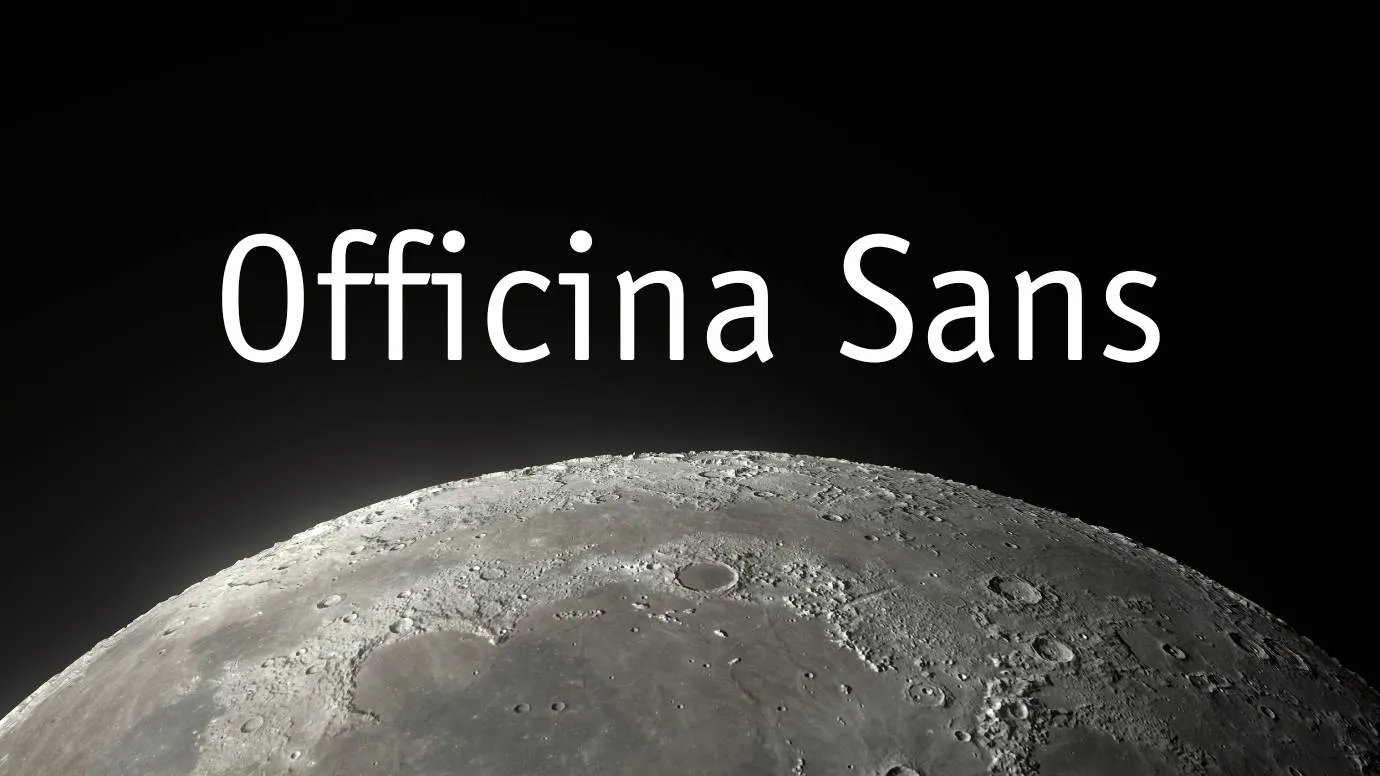
Officina Sans Font Family is a high-quality sans serif typeface that was designed by Erik Spiekermann and Ole Schäfer and published in 1990 through International Typeface Corporations.
This typeface also has very famous versions that are ITC Officina Display and ITC Officina Serif font as well as Italic and bold version. The lowercase letters of this typeface do great work for content when used with Barlow font.
NameOfficina Sans Font
DesignerErik Spiekermann, Ole Schäfer
FoundryITC
StyleSans serif
Date Released1990